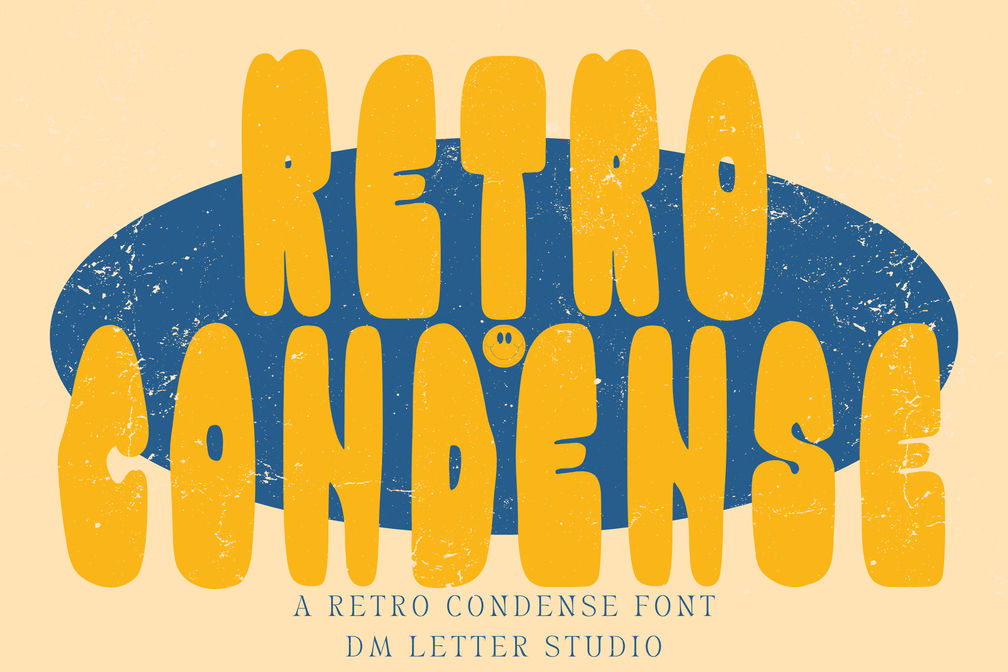
Retro Condense
Retro Condense – A Narrow Vintage Display Font
Retro Condense is a sleek and stylish condensed font inspired by vintage design aesthetics. With its tall, narrow letterforms and retro flair, this display typeface is perfect for posters, branding, signage, packaging, and editorial layouts that call for a bold yet space-saving look. Retro Condense balances nostalgia with modern usability, making it a versatile addition to your font collection.
• Condensed Retro Style – Tall and narrow characters with vintage-inspired design.
• Great for Space-Saving Layouts – Ideal for posters, packaging, headers, and editorial projects.
• Versatile Display Font – Works well in both classic and modern-themed designs.
• Complete Character Set – Includes uppercase, lowercase, numbers, punctuation, and multilingual support.